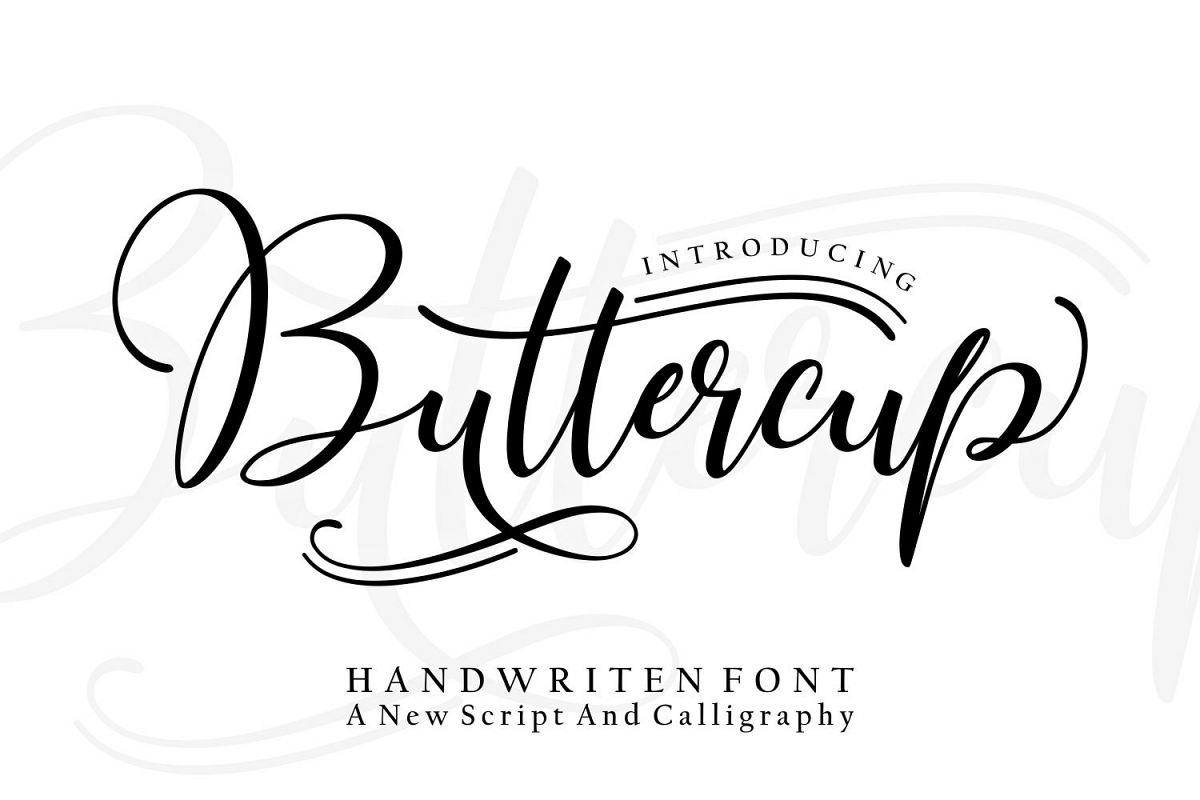
Buttercup
The Buttercup is a beautiful, smooth handwritten font that is perfect for projects that need an elegant headline font. It has swashy alternates and looks great in printed materials.
Buttercup